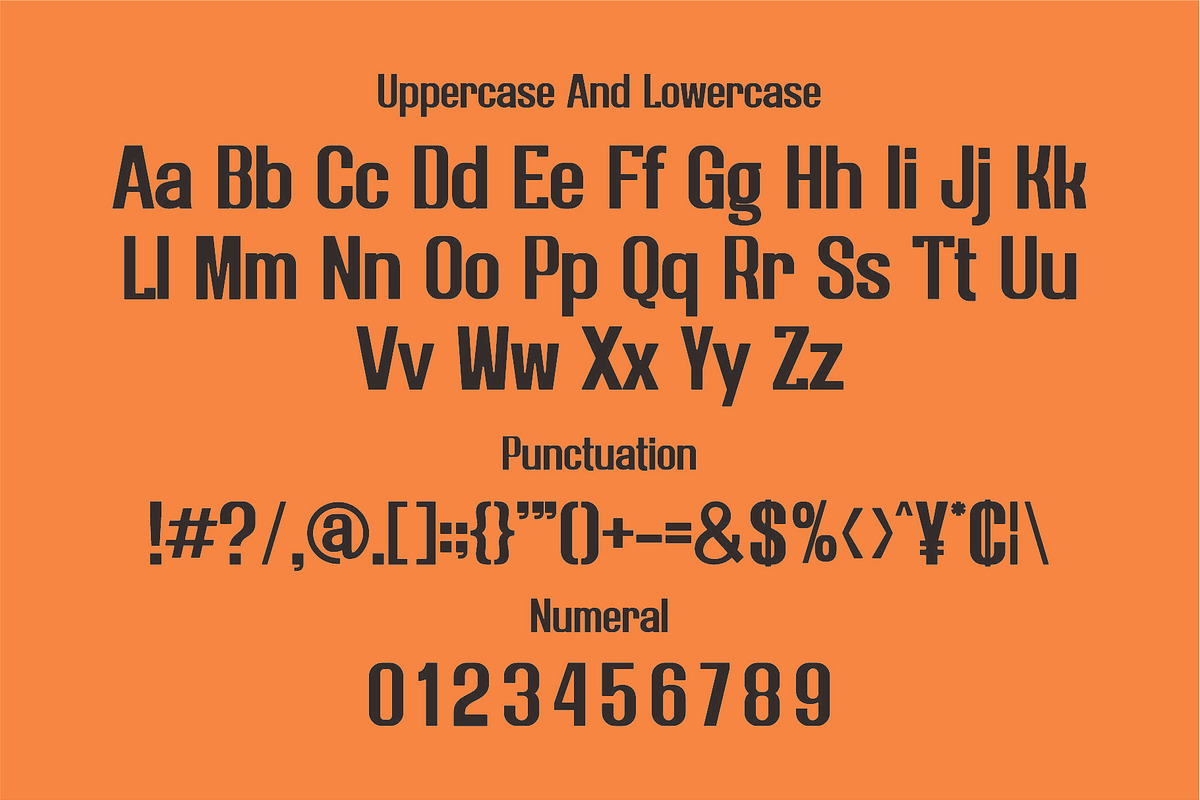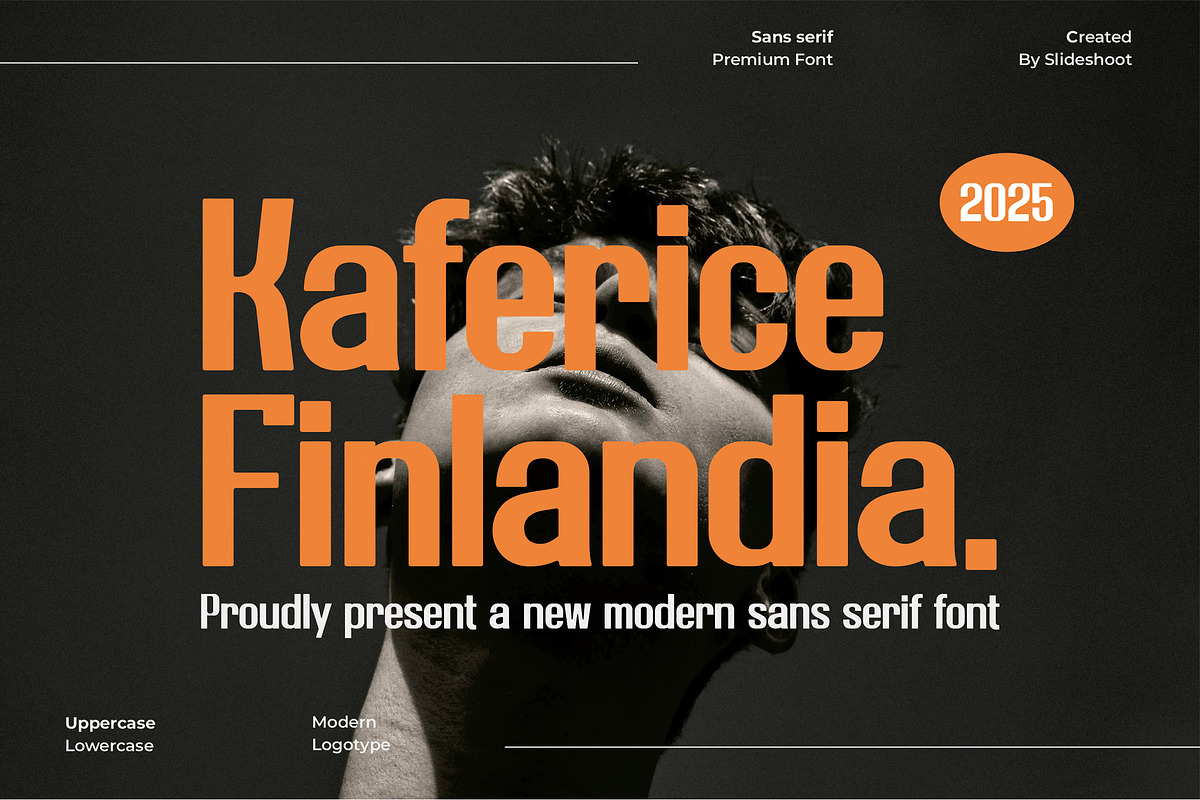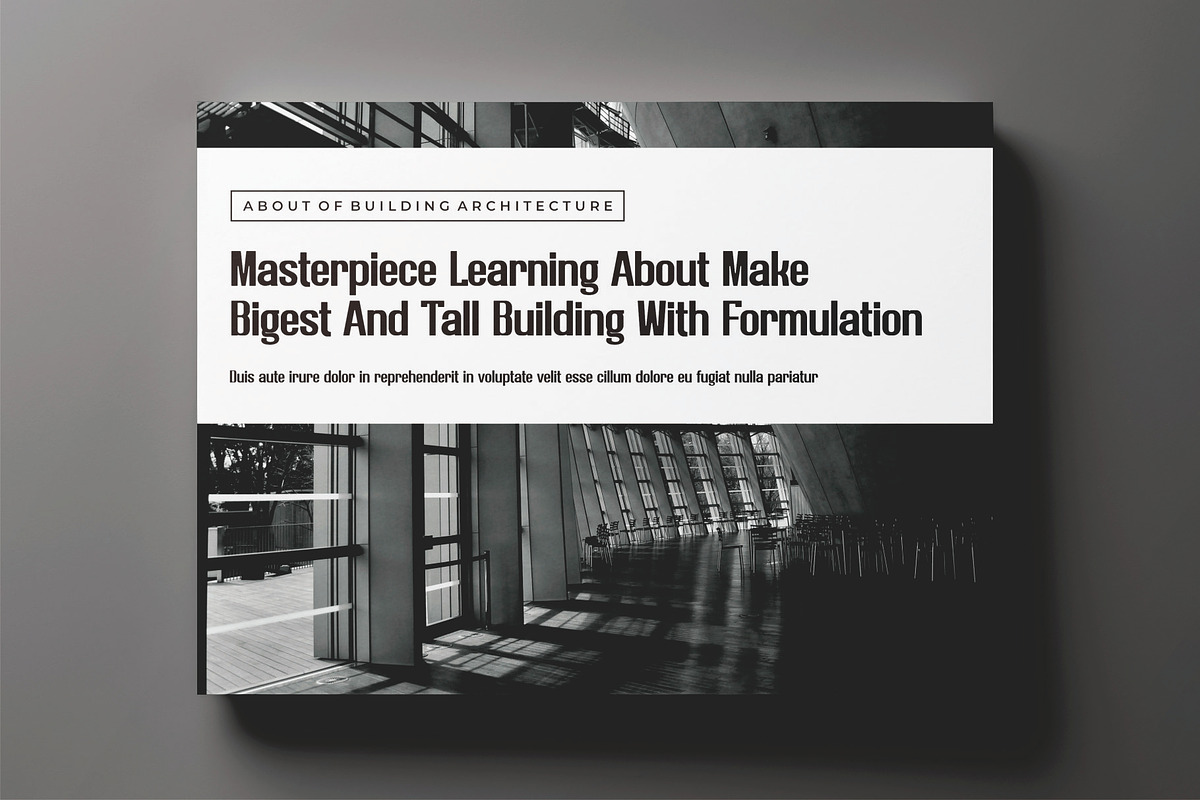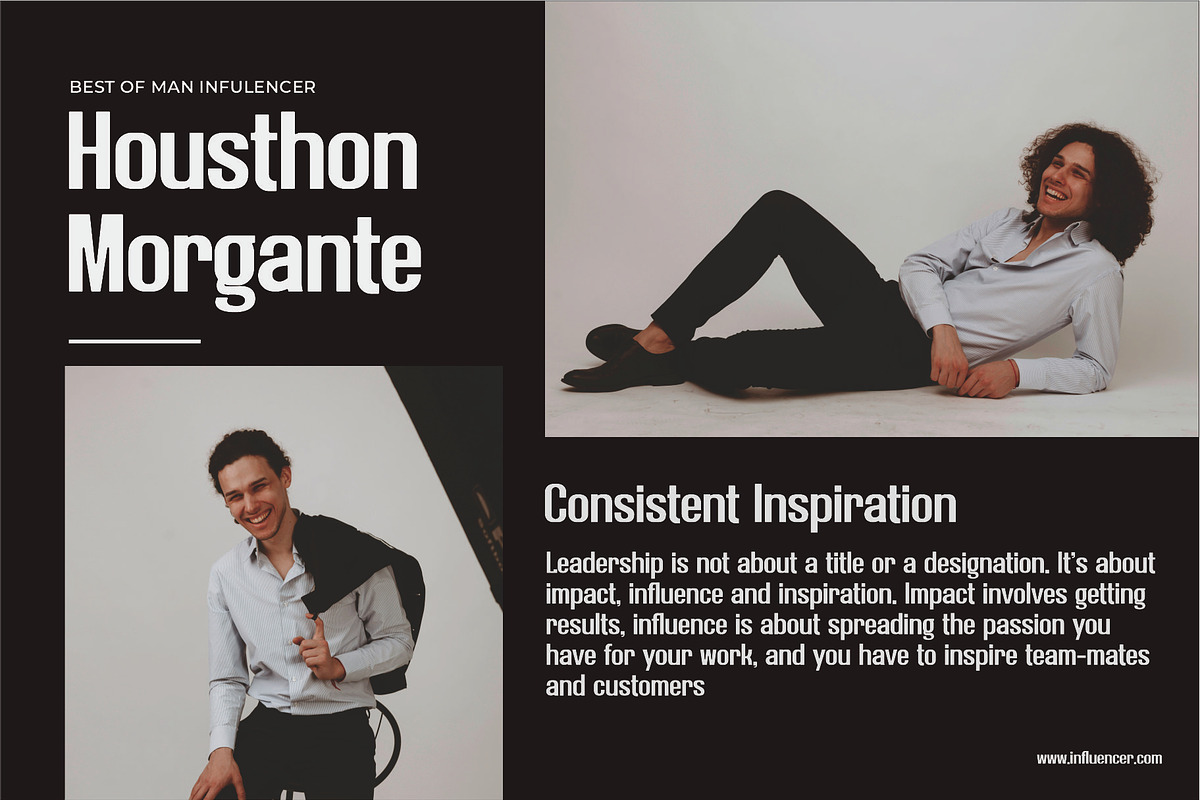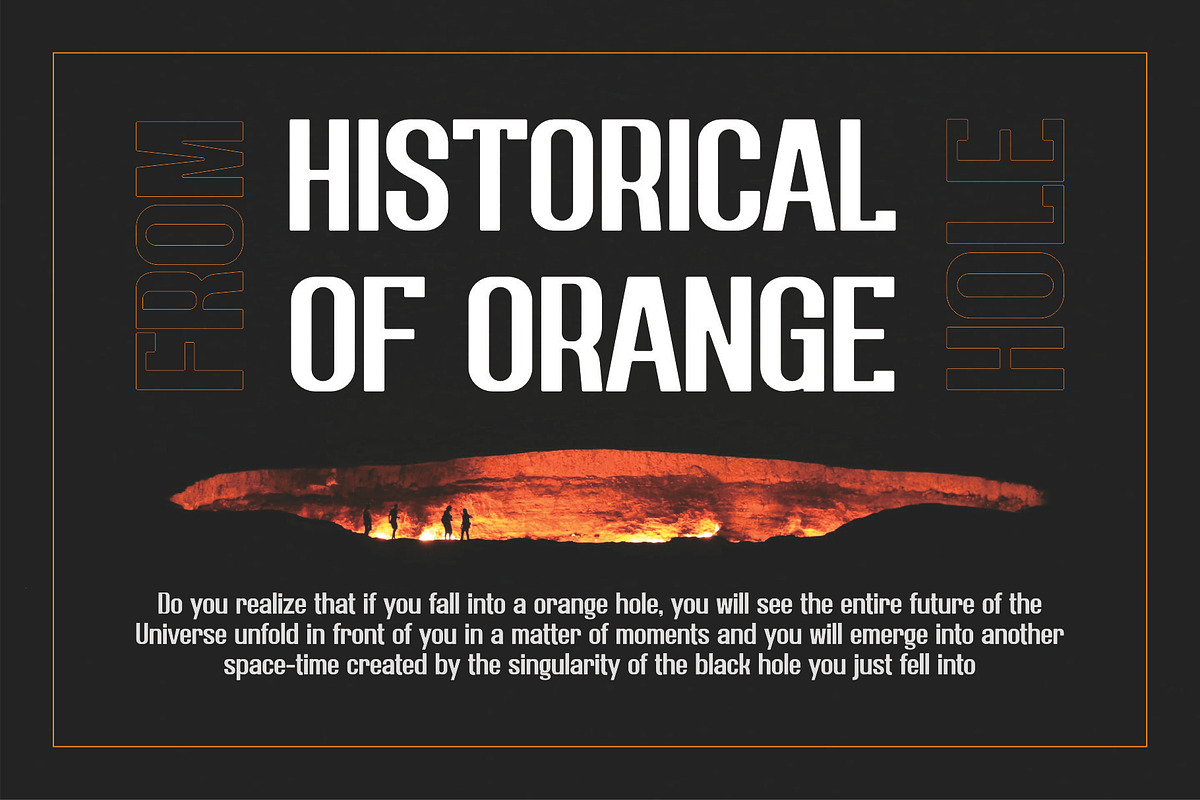
Kaferice Findlandia || Sans Serif
Introducing Kaferice Finlandia is a sans serif modern font, trendy, bouncy and cute display font. It has a unique character with wood theme. It is perfect to be combined with invitation card designs, company logos, movie titles, movie names, business cards, book titles, brand names and various other designs.